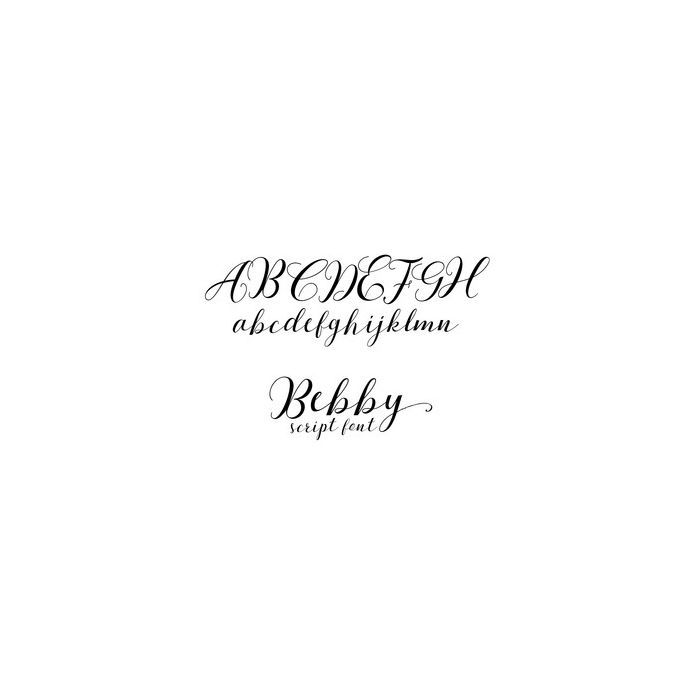
Bebby Script is an elegant and modern calligraphic font with pretty trim that includes beginning and ending alternates. Perfect for displays, invitations, posters, or T-shirt design. This font contains a total of 373 characters including international characters.